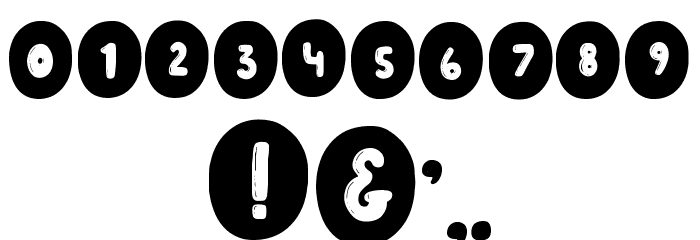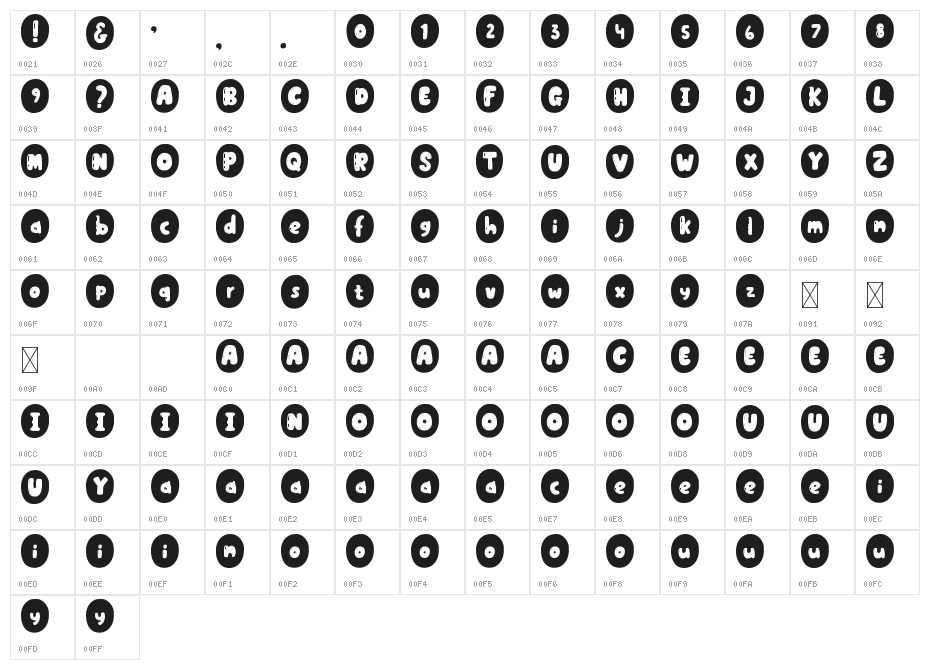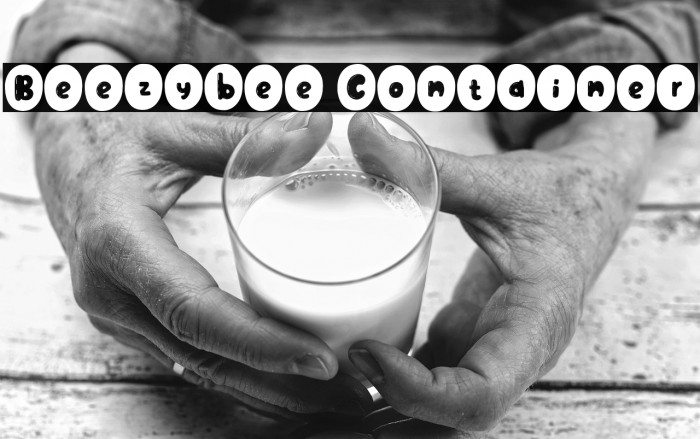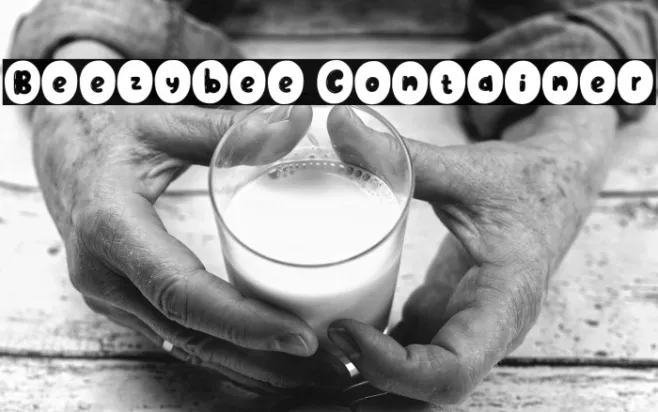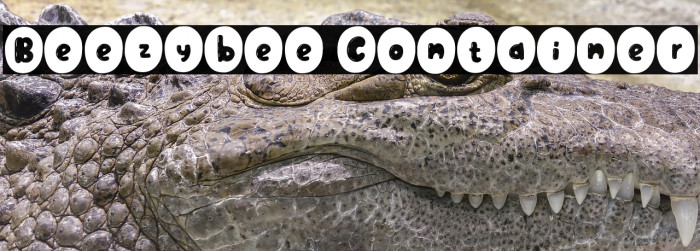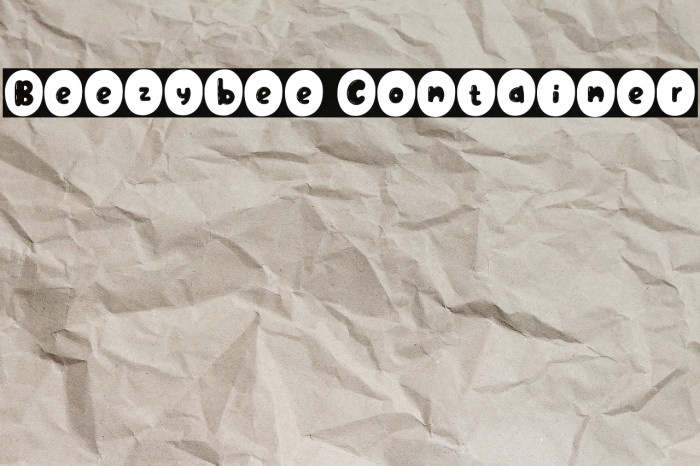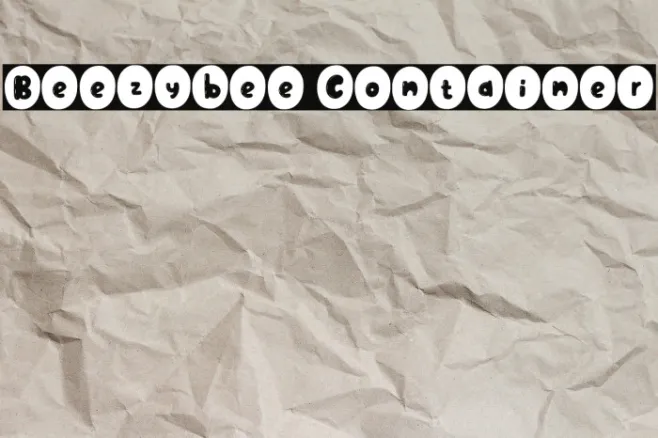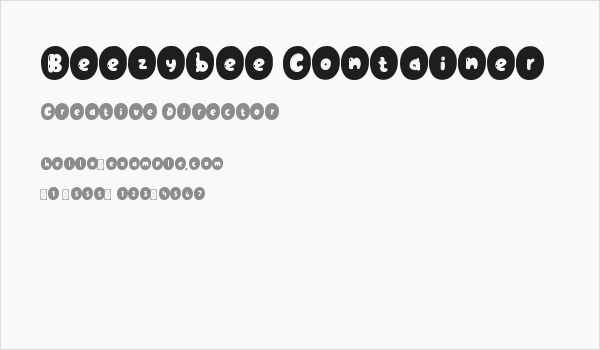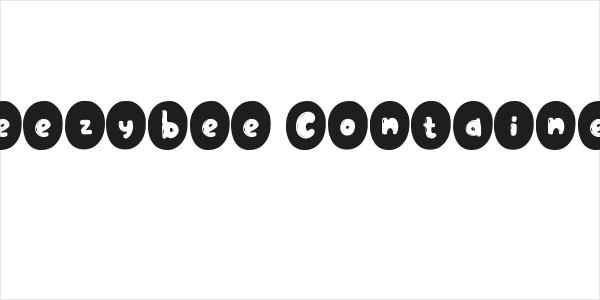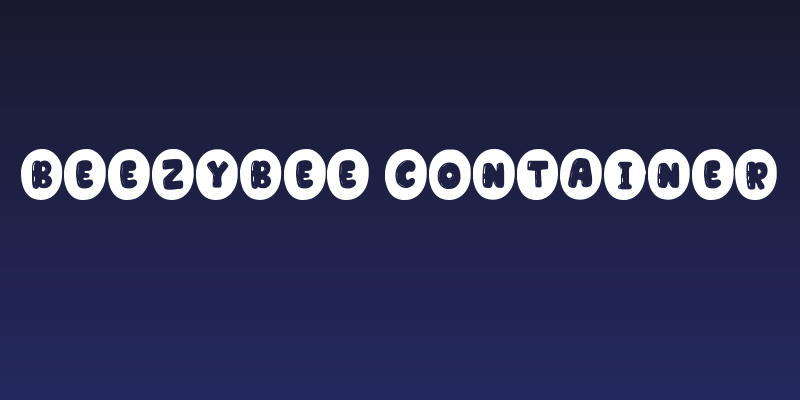
Beezybee Container Font
Beezybee Container Description
This playful and bold font features characters enclosed in circular shapes, creating a unique and eye-catching appearance. The letters are uppercase and lowercase, with numbers and a selection of special characters. The style is reminiscent of a playful, cartoonish aesthetic, making it ideal for designs that require a fun and informal touch. The characters are well-defined with a consistent circular background, adding to the font's distinctiveness. The boldness of the letters ensures high visibility and impact, making it suitable for various creative projects.
| Overall Style | Playful, Cartoonish |
| Proposed Projects | Perfect for children's books, playful branding, party invitations, and creative posters. |